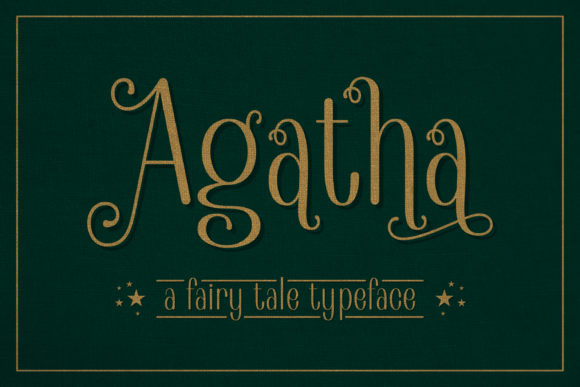
Discover Your New Favorite Font: Agatha Font
Have you ever been stuck on a design project, staring at a blank canvas, searching for that perfect font to bring your vision to life? We’ve all been there. But what if I told you that there’s a font that can elevate your work and make your designs truly shine? Meet Agatha Font, a magical handwritten display font that’s sure to become a true favorite among designers.
Masterfully designed to combine classy calligraphic influences with a contemporary and fresh feel, Agatha Font is the perfect addition to any project. Its casual yet elegant touch makes it versatile enough to be used in a variety of contexts, from wedding invitations to branding materials. With its PUA encoding, you’ll have access to all of the glyphs and ligatures at your fingertips, making it a valuable tool for designers looking to take their work to the next level.
- Unique Characteristics: Agatha Font features a unique blend of elegance and sophistication, with intricate details and ornate flourishes that set it apart from other serif fonts.
Agatha Font Review
I recently had the chance to work with the Agatha Font, and I must say it’s a solid choice for designers looking for a classic, elegant look. ✨ Here are some of its strengths:
- Refined and sophisticated, the Agatha Font is perfect for high-end branding and design projects.
- The font’s subtle curves and rounded edges make it highly readable, even in smaller sizes.
- The font is highly versatile and can be used for a wide range of applications, from body text to headings.
However, like any font, Agatha has its limitations: ⚠️
- The font may feel a bit too traditional for modern designs that require a bolder, edgier look.
- The font’s high x-height may make it less suitable for designs where a more condensed, vertical feel is desired.
- The font’s subtle curves may not be noticeable on screens with lower resolutions.
Overall, I found Agatha to be a reliable and elegant font that can add a touch of sophistication to any design project. While it may not be the best fit for every project, it’s definitely worth considering for high-end branding and design applications.
Getting the Most Out of Agatha Font
For optimal results, use Agatha Font for titles, headings, and body text in formal or elegant designs
Pair Agatha Font with complementary fonts to create a harmonious and professional look
Experiment with different font sizes, colors, and styles to create visual interest and emphasis
Agatha Font is ideal for:
Formal invitations and event materials
Business cards and company branding
Wedding stationery and wedding invitations
Any design that requires a classic, elegant, and sophisticated look